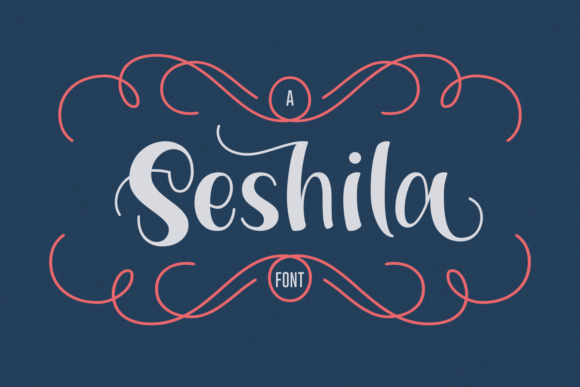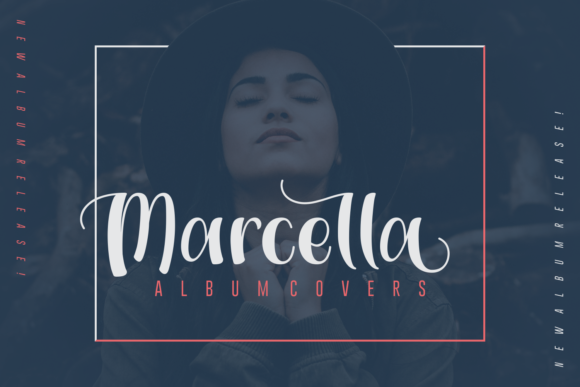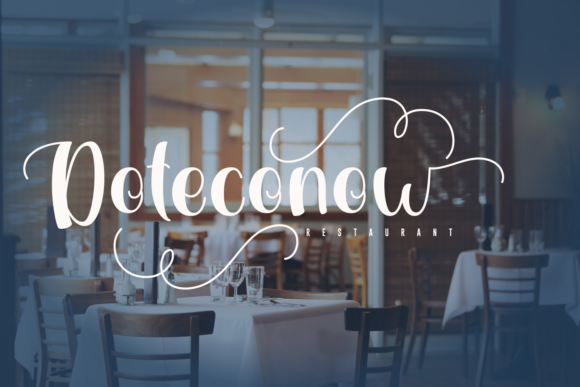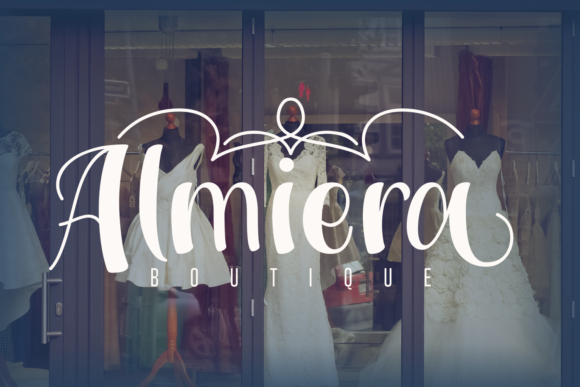
HomeScript FontsSeshila Font Script Fonts Seshila Font FacebookXPinterestWhatsApp Seshila Font Poster 2 Seshila Font Poster 3 Seshila Font Poster 4 About Seshila Font The Seshila is an amazing script font. It has a bold style and includes beautiful swashes to add to your designs. DOWNLOAD NOW People also explored Rumaisha Font Mens Army Bella Canvas 3001 Shirt Mockup Monogram Jack Font Autumn Monogram Font Sweet November Font Epistrophe Font Goldie Font Florissha Font Somebody Font 333 0 TagsSeshila Font Previous articleKedjoe FontNext articleLivvie Duo Font LEAVE A REPLY Cancel reply Comment: Please enter your comment! Name:* Please enter your name here Email:* You have entered an incorrect email address! Please enter your email address here Website: Save my name, email, and website in this browser for the next time I comment. Personal Use Free Shkoder 1989 Personal Use Free Read more about this font Sunflower Personal Use Free Read more about this font Kids Toys Personal Use Free Read more about this font Bally Girl Personal Use Free Read more about this font BLOG Best Fonts for T-Shirt Design – Top 2025 Picks In 2025, t-shirt design has become more than just fashion—it's a form of self-expression. Whether you're... Free Fonts Risk: Why Free Fonts Can Be Dangerous for Designers How to Cut Any Font on Cricut: Convert a Font to SVG (Free) Best Fonts for YouTube Videos: Make Your Thumbnails Stand Out